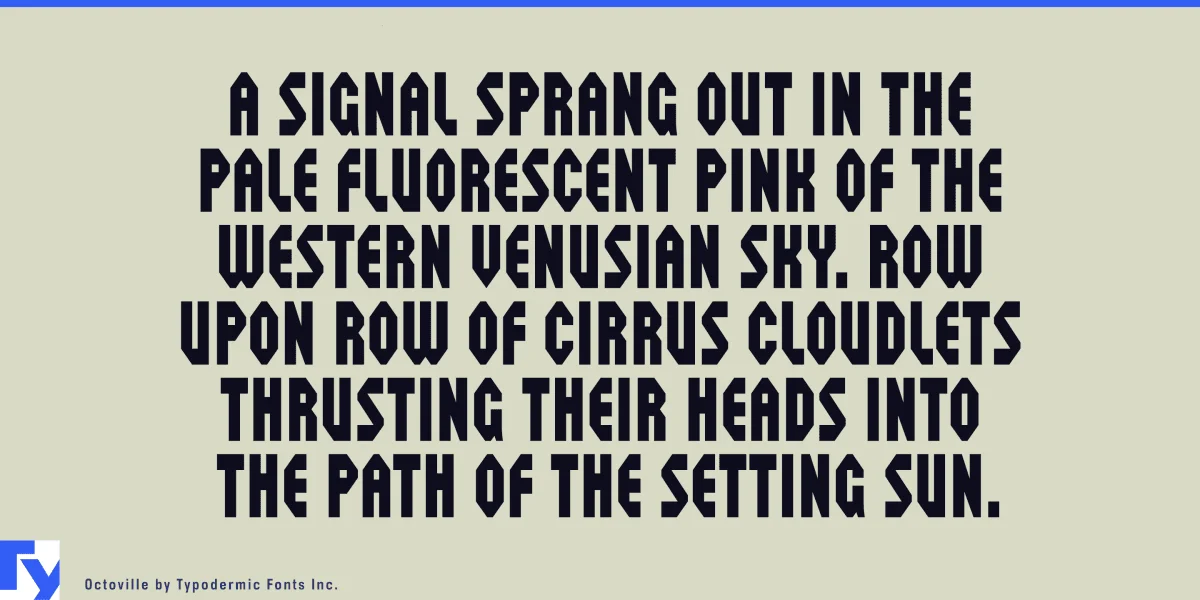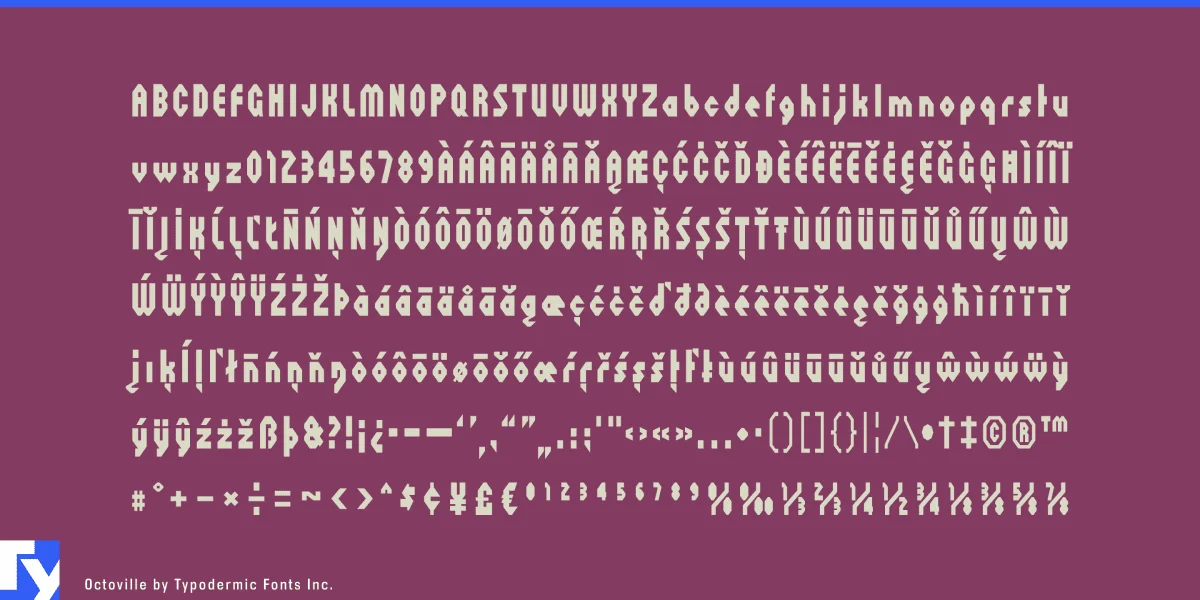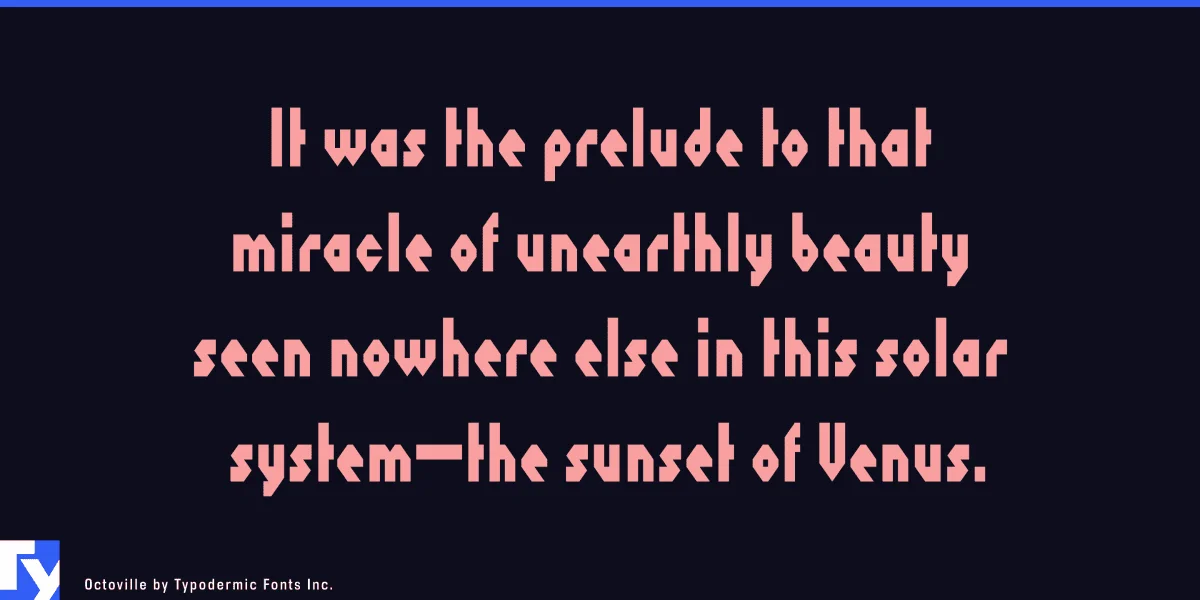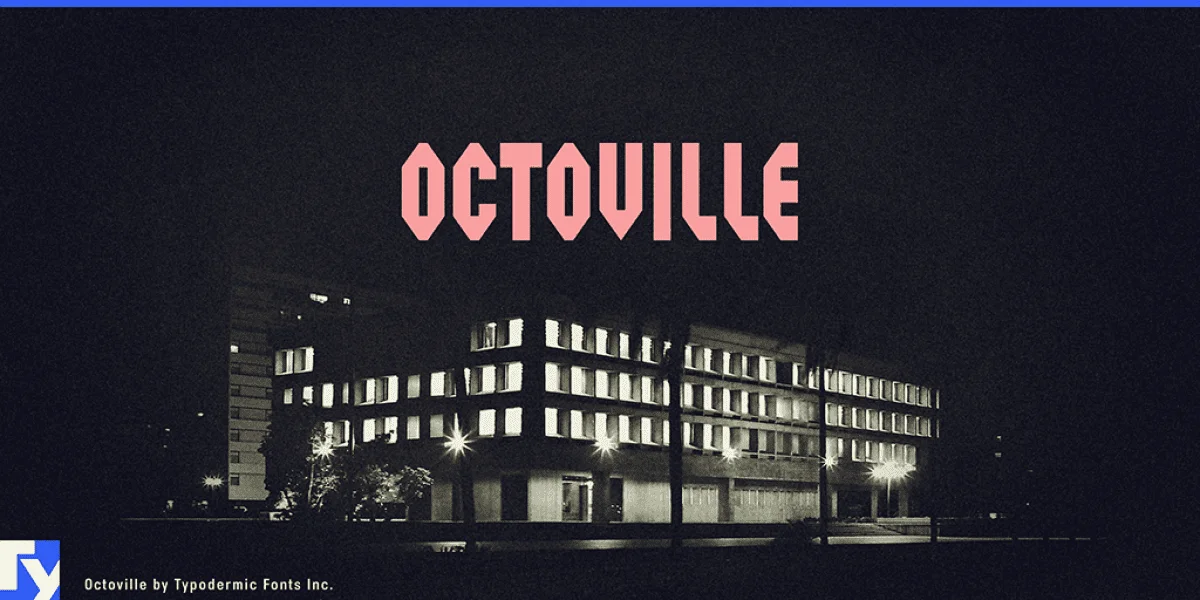
Octoville is a cybernated alphabetic persuader. Its linear chamfered letterforms will lend your message a severe, technological tone. Most Latin-based European writing systems are supported, including the following languages. Afaan Oromo, Afar, Afrikaans, Albanian, Alsatian, Aromanian, Aymara, Bashkir (Latin), Basque, Belarusian (Latin), Bemba, Bikol, Bosnian, Breton, Cape Verdean, Creole, Catalan, Cebuano, Chamorro, Chavacano, Chichewa, Crimean Tatar (Latin), Croatian, Czech, Danish, Dawan, Dholuo, Dutch, English, Estonian, Faroese, Fijian, Filipino, Finnish, French, Frisian, Friulian, Gagauz (Latin), Galician, Ganda, Genoese, German, Greenlandic, Guadeloupean Creole, Haitian Creole, Hawaiian, Hiligaynon, Hungarian, Icelandic, Ilocano, Indonesian, Irish, Italian, Jamaican, Kaqchikel, Karakalpak (Latin), Kashubian, Kikongo, Kinyarwanda, Kirundi, Kurdish (Latin), Latvian, Lithuanian, Lombard, Low Saxon, Luxembourgish, Maasai, Makhuwa, Malay, Maltese, Māori, Moldovan, Montenegrin, Ndebele, Neapolitan, Norwegian, Novial, Occitan, Ossetian (Latin), Papiamento, Piedmontese, Polish, Portuguese, Quechua, Rarotongan, Romanian, Romansh, Sami, Sango, Saramaccan, Sardinian, Scottish Gaelic, Serbian (Latin), Shona, Sicilian, Silesian, Slovak, Slovenian, Somali, Sorbian, Sotho, Spanish, Swahili, Swazi, Swedish, Tagalog, Tahitian, Tetum, Tongan, Tshiluba, Tsonga, Tswana, Tumbuka, Turkish, Turkmen (Latin), Tuvaluan, Uzbek (Latin), Venetian, Vepsian, Võro, Walloon, Waray-Waray, Wayuu, Welsh, Wolof, Xhosa, Yapese, Zapotec Zulu and Zuni.